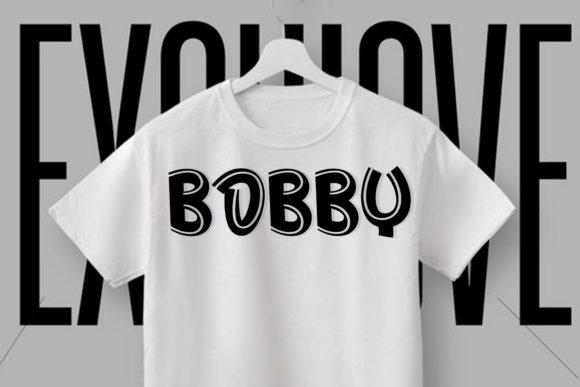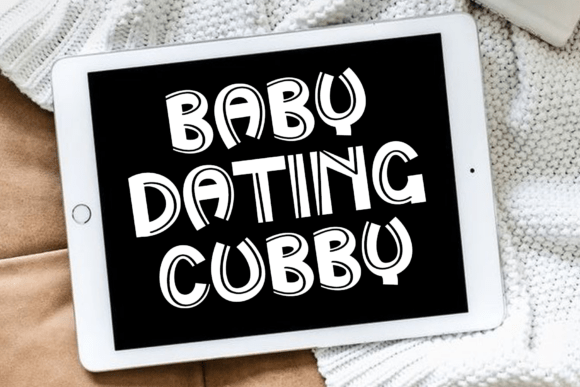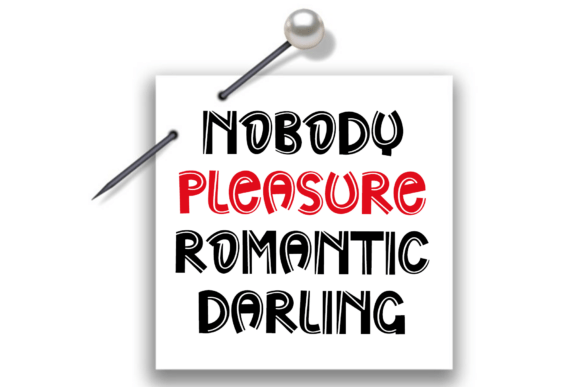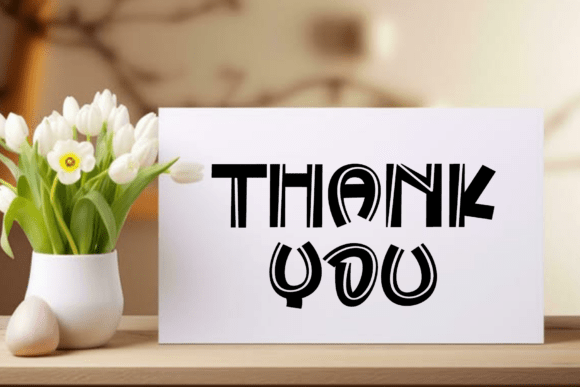
Crafter Early Font: A Timeless Handwritten Font for Creative Designs
Are you a designer or crafter looking for a unique and beautiful font to elevate your creative projects? Look no further than Crafter Early Font! This lovely and timeless handwritten font is perfect for creating eye-catching logos, branding, and quotes that will make your design come alive.
What Makes Crafter Early Font Special?
Crafter Early Font stands out from other fonts due to its distinctive and beautiful touch. Every letter has a unique character that adds a personal touch to your designs. The font’s handwritten style gives it a warm and organic feel, making it perfect for projects that require a personal and creative approach.
Crafter Early Font is an excellent choice for creating logos, branding, and quotes that require a touch of elegance and sophistication. The font’s unique style makes it easy to read and understand, while its beautiful touch adds a creative flair to your designs. Whether you’re creating a logo for a new business or designing a quote for social media, Crafter Early Font is the perfect choice.
Why Designers and Crafters Love Crafter Early Font
Designers and crafters love Crafter Early Font for its versatility and creative possibilities. The font can be used for a wide range of projects, from digital designs to print materials. Its unique style makes it easy to pair with other fonts, allowing you to create stunning and cohesive designs. Additionally, the font’s handwritten style adds a personal touch to your projects, making them stand out from the crowd.
Crafter Early Font: A Timeless Addition to Your Font Collection
Crafter Early Font is a timeless addition to any font collection. Its unique and beautiful style makes it a versatile font that can be used for a wide range of projects. Whether you’re a designer, crafter, or DIY enthusiast, Crafter Early Font is a must-have font that will elevate your creative projects and add a personal touch to your designs.
In conclusion, Crafter Early Font is a lovely and timeless handwritten font that is perfect for creating eye-catching logos, branding, and quotes. Its unique and beautiful touch makes it a standout font that will add a personal touch to your designs. Whether you’re a designer, crafter, or DIY enthusiast, Crafter Early Font is a must-have font that will elevate your creative projects and help you create stunning designs.